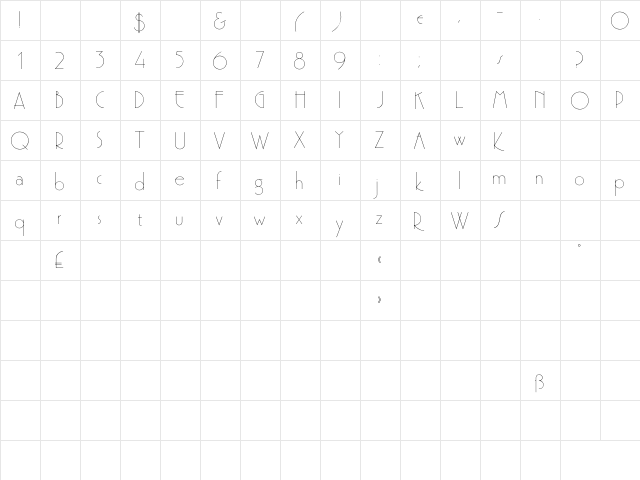
Puertu Feno Regular
Design Context for Puertu Feno Typeface
Puertu Feno offers clean, dependable letterforms without strong stylistic allegiance, making it a practical choice for designers who need flexibility.